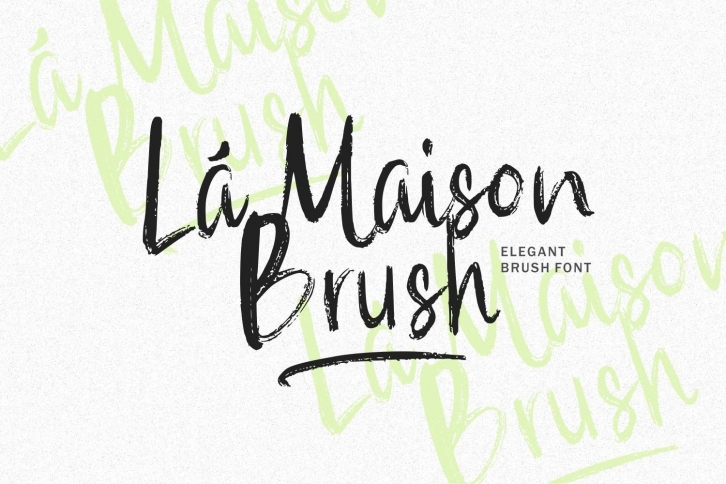
La Maison Brush is a trendy and unique font with an authentic style. It was designed by Allouse Studio and it's a great choice for creative people who need such a font. It was released on February 20, 2021 and the file size is 4.7 MB. La Maison Brush will add an organic vibe to any design idea!